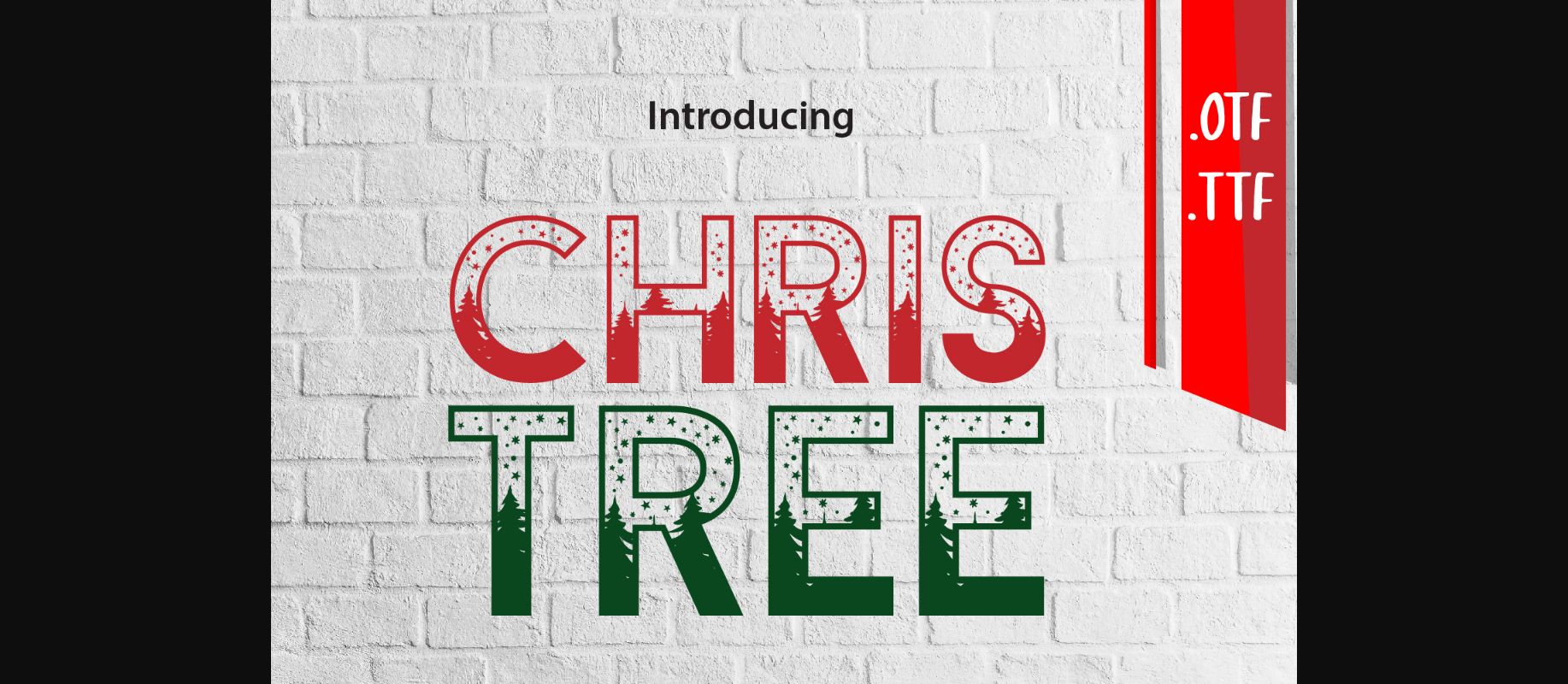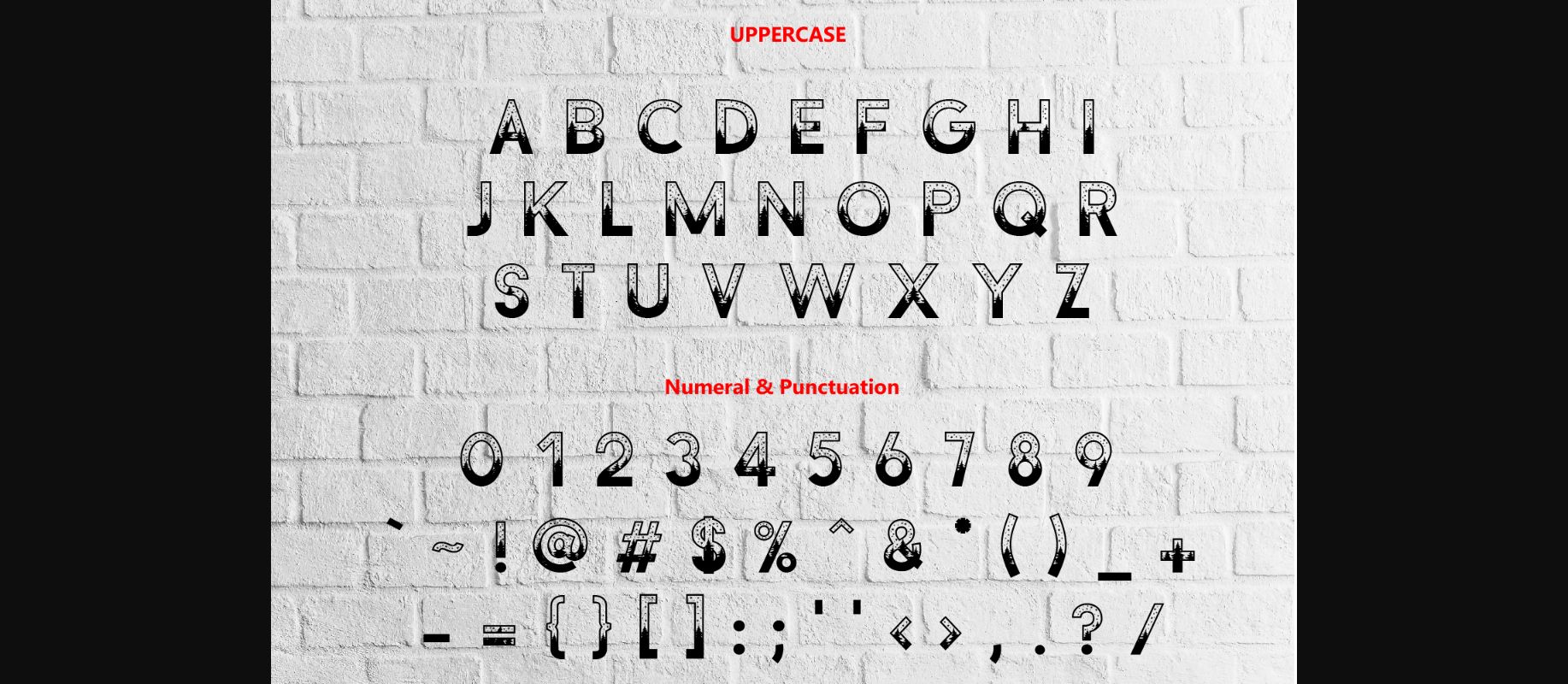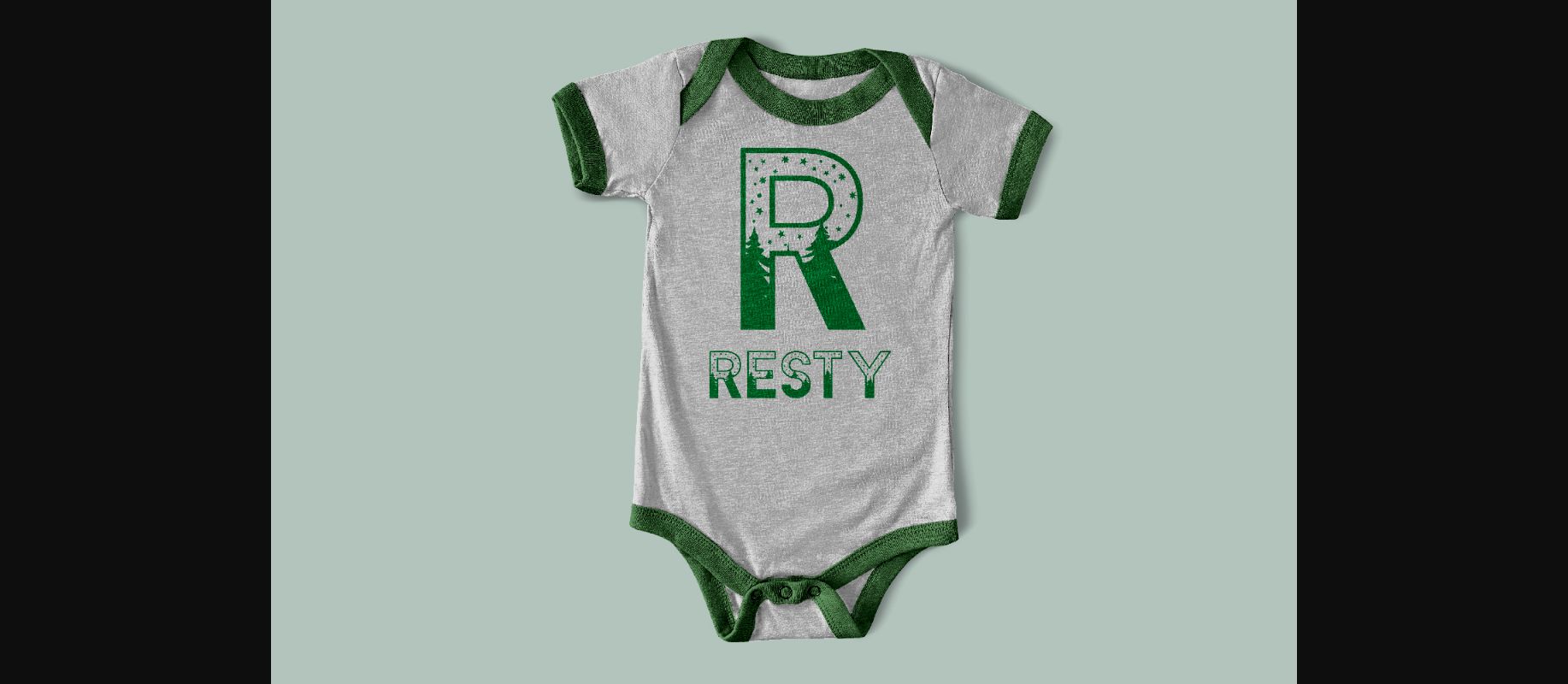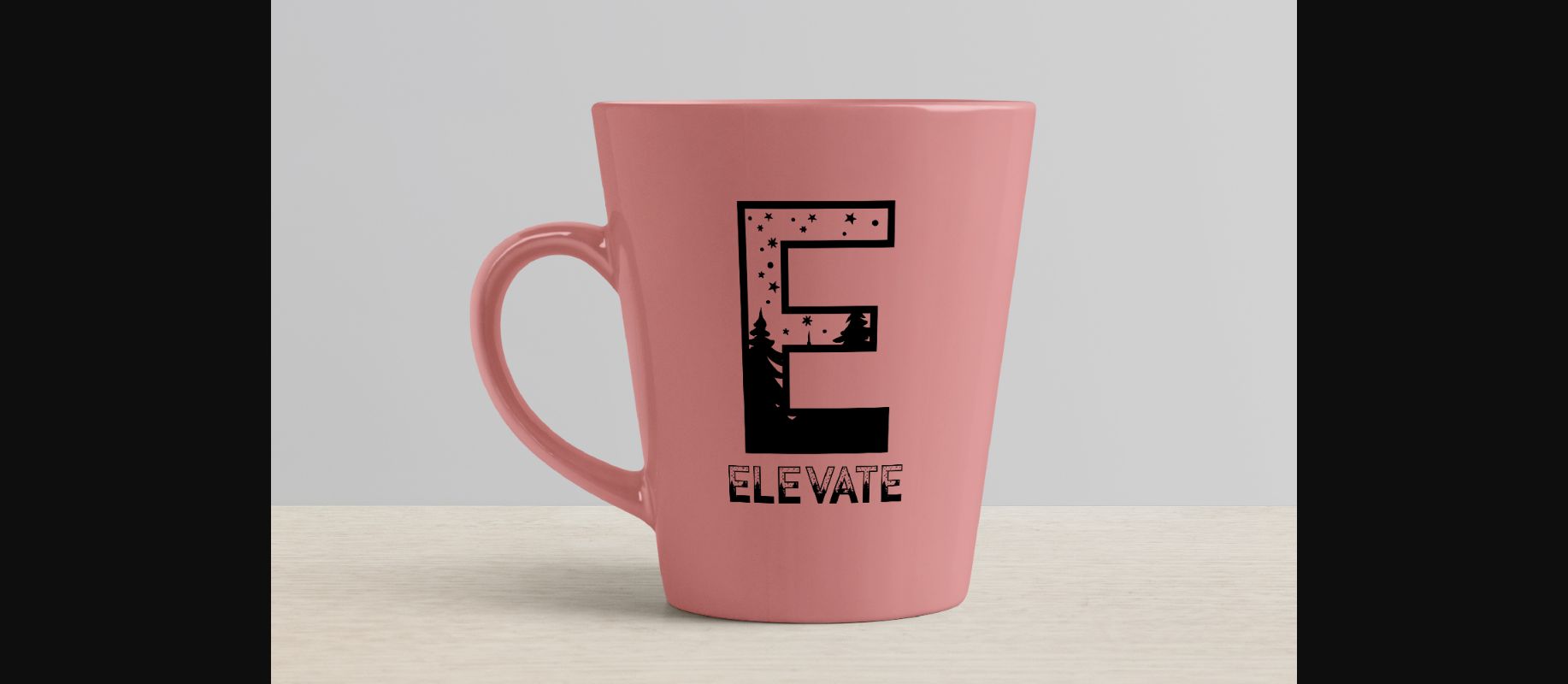
Christree is a fun and festive decorative font where each letter is filled with a forest of Christmas trees and a sky filled with stars. This is a beautiful font for your Christmas crafts and projects!